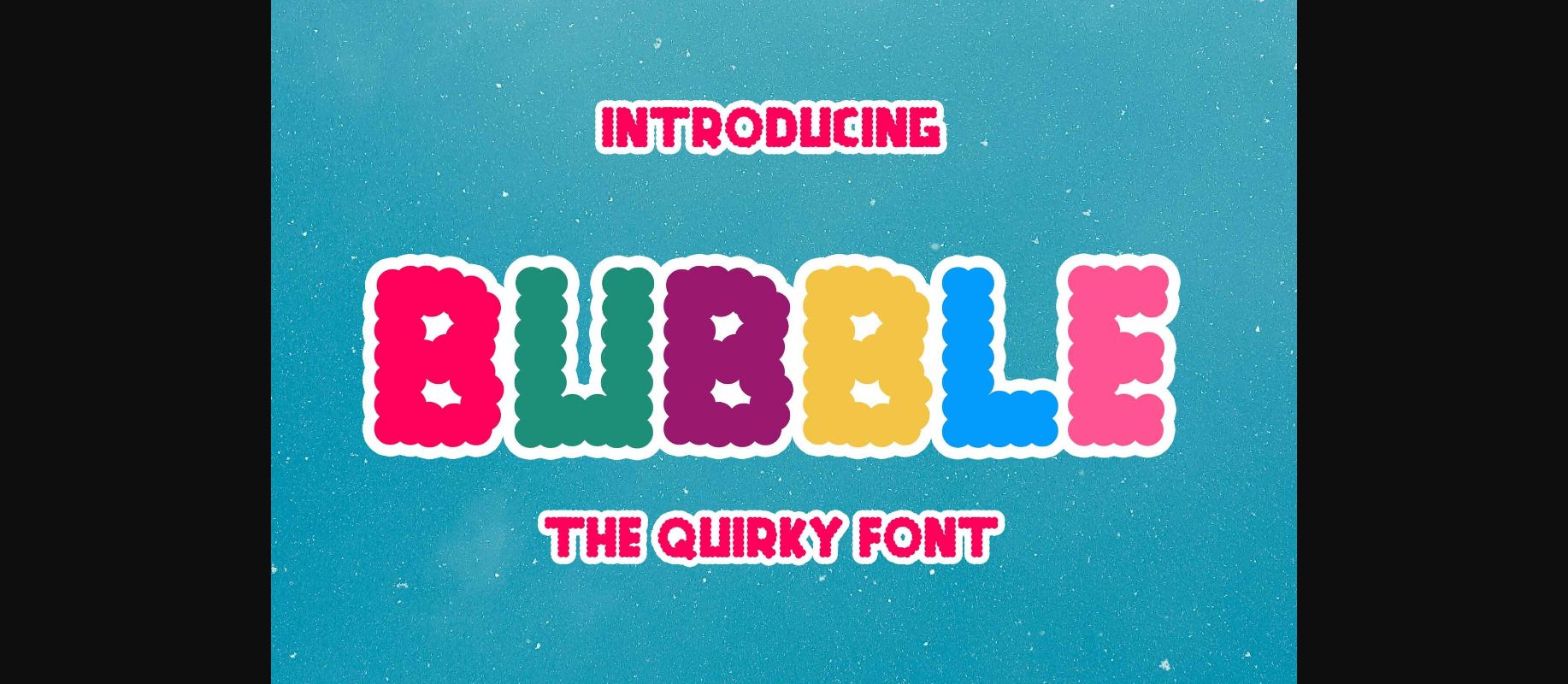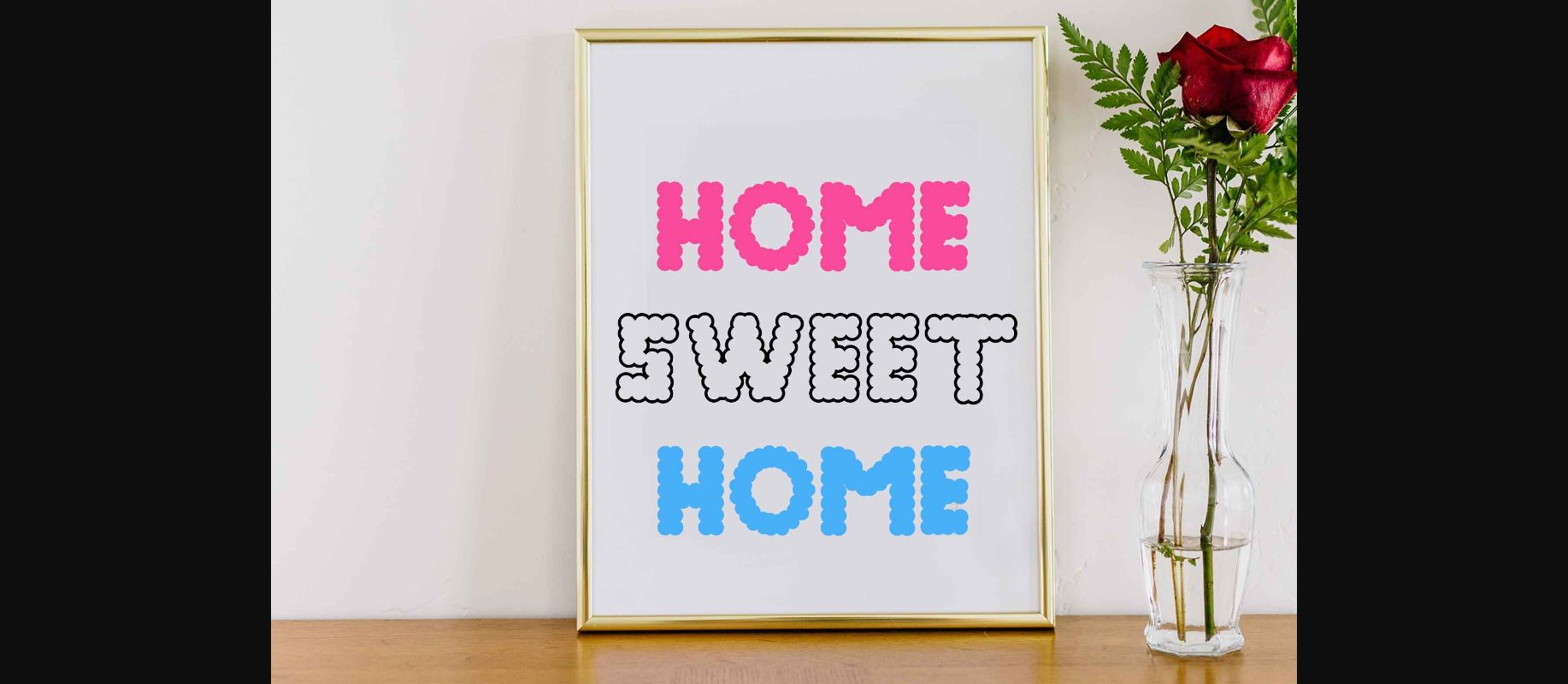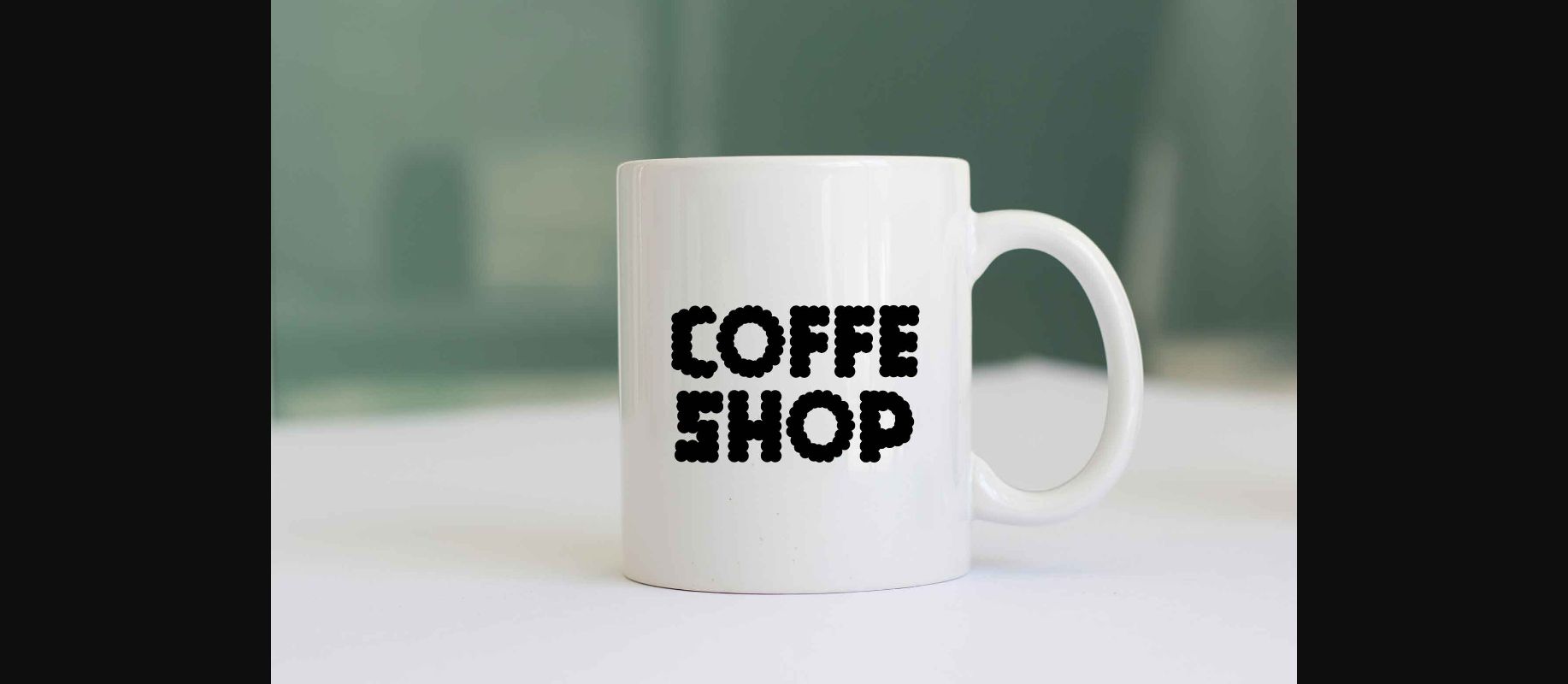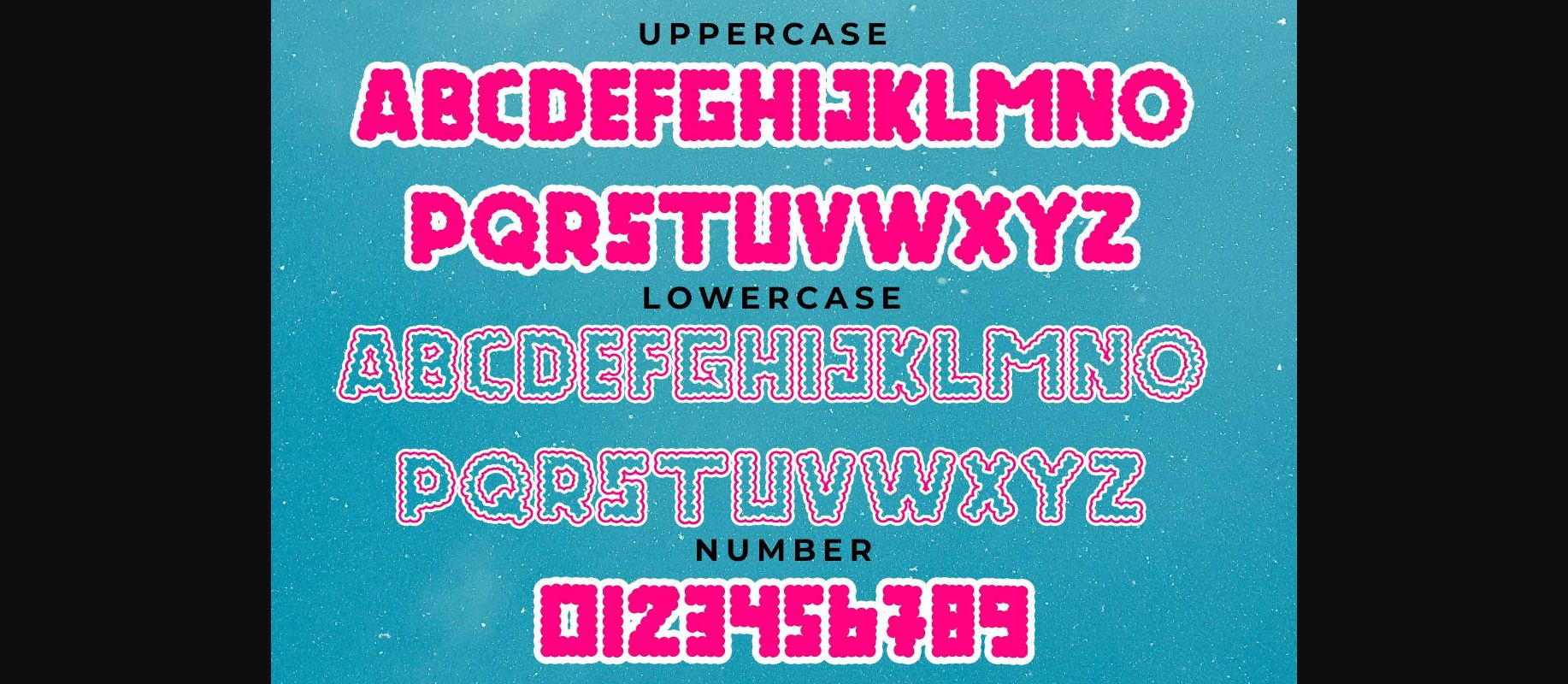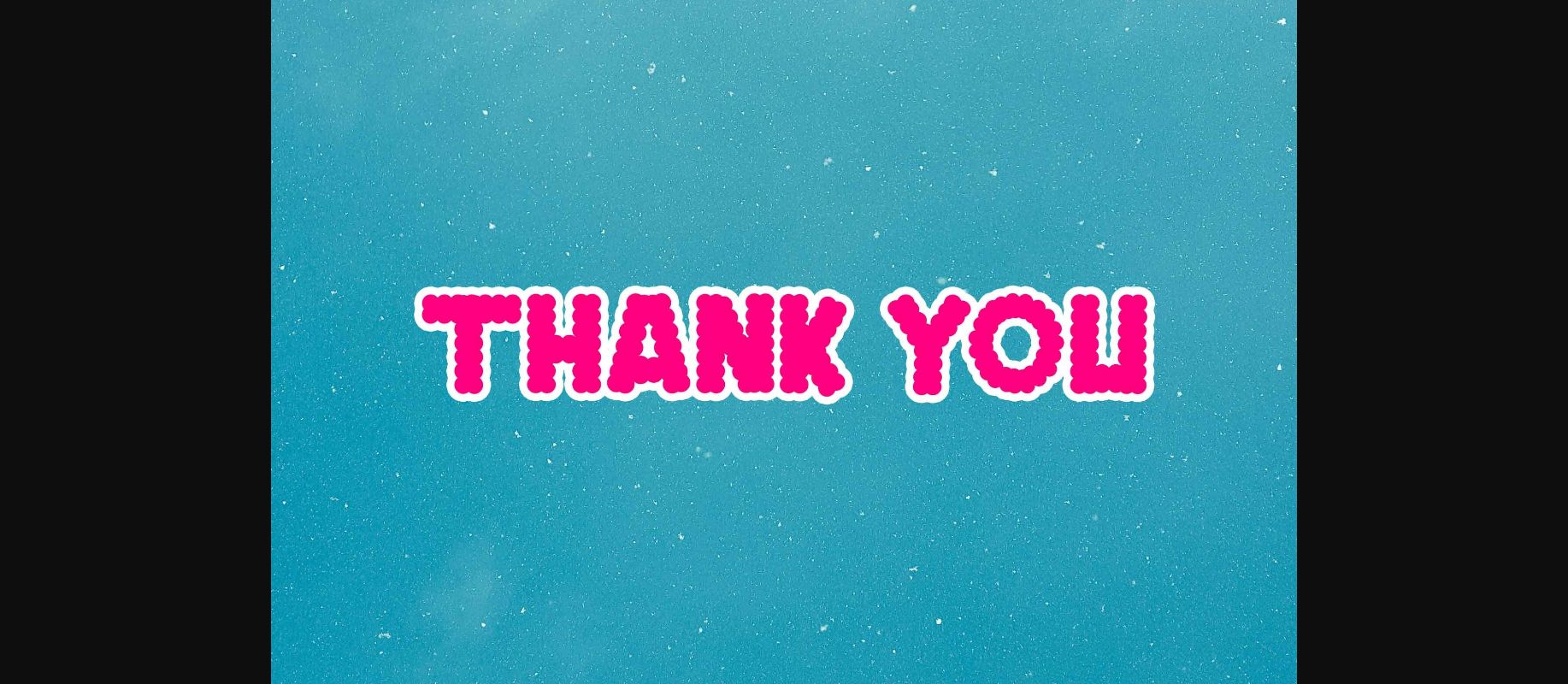
Bubble Font
About Bubble Font
Bubble is a strange and unique font because of its irregular shape. This font is suitable for unique crafts, unique social media posts, t-shirts and much more. This font has the potential to become your favorite font. This font is available in uppercase, lowercase and number letters